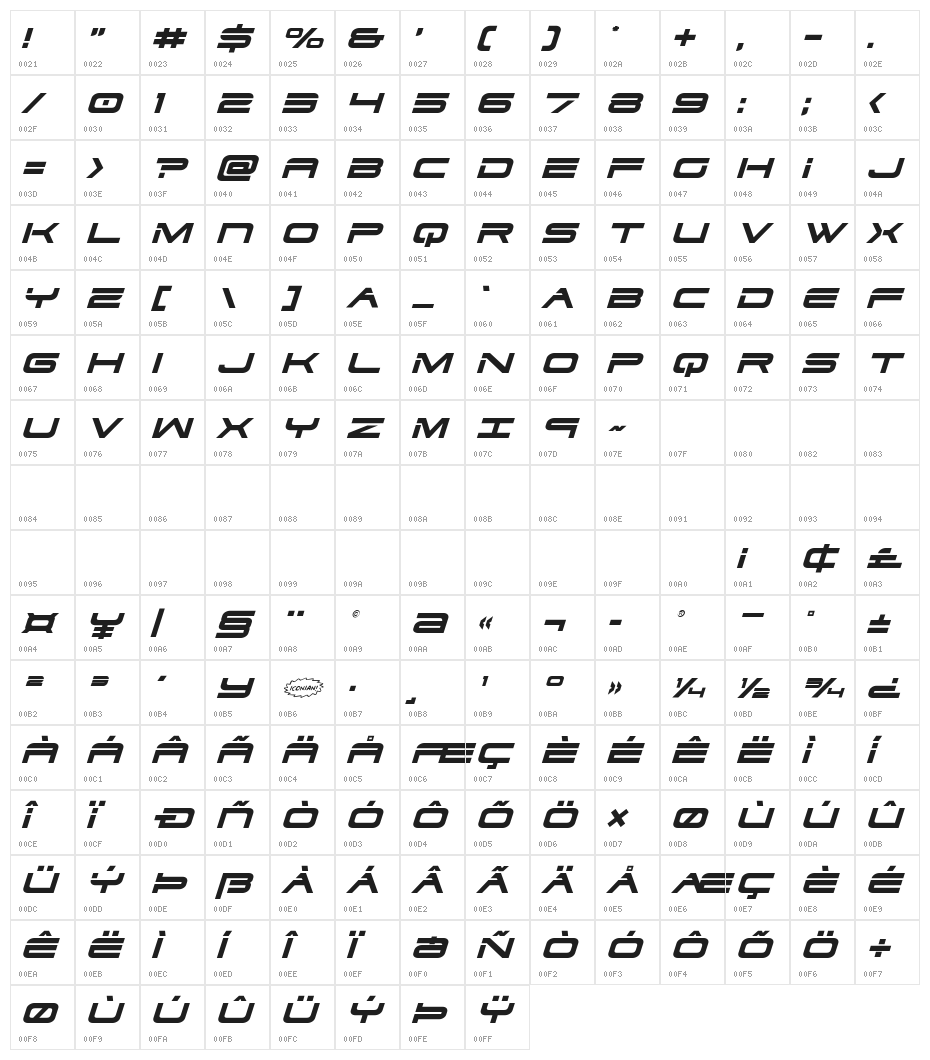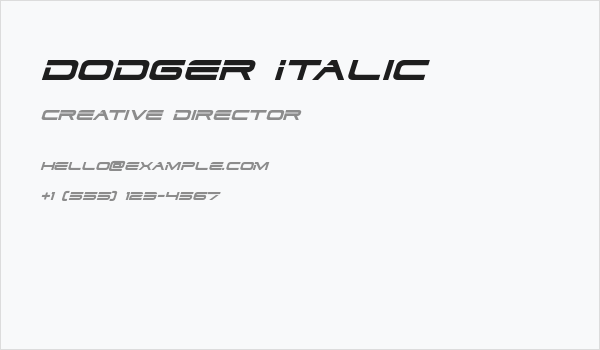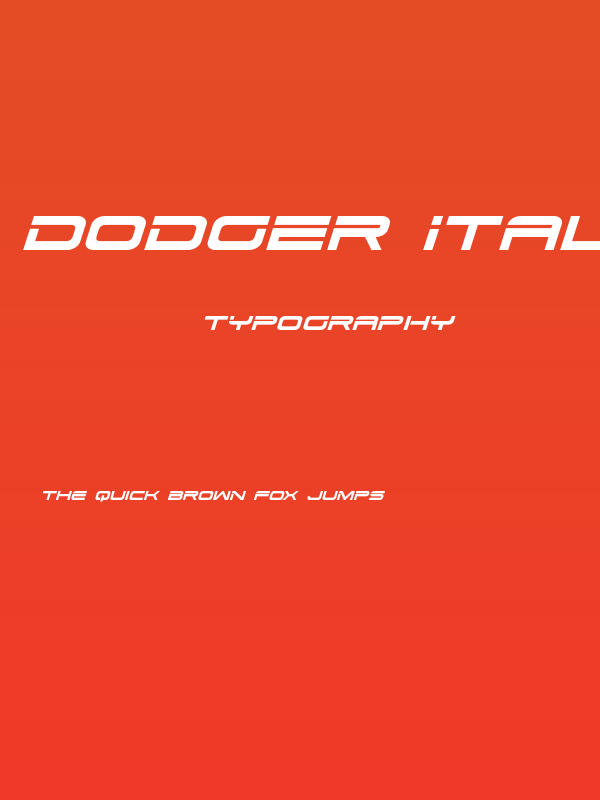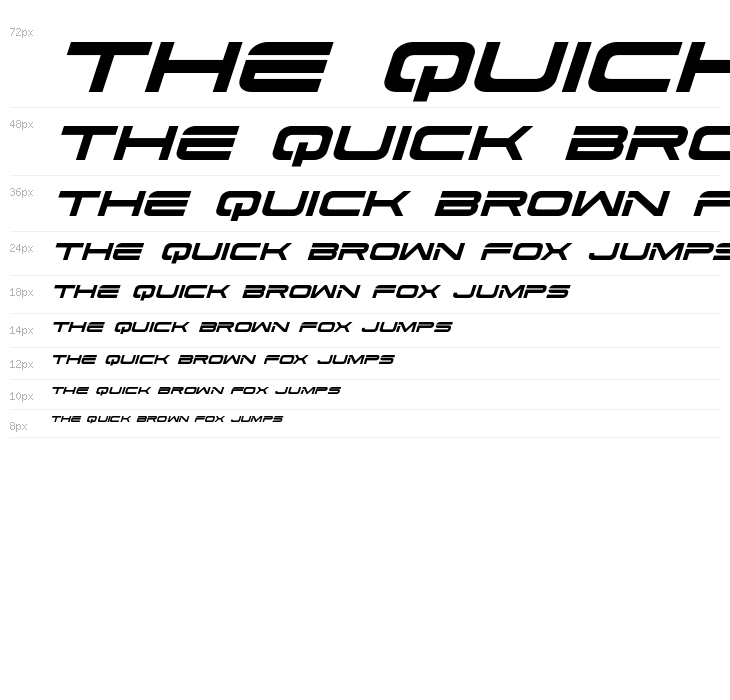
Dodger Italic Font
Dodger Italic Description
This font features a sleek, italicized design with a futuristic and dynamic appearance. The characters are slightly slanted, giving a sense of motion and speed. The strokes are uniform in thickness, contributing to a clean and modern look. The font maintains a consistent width across all characters, ensuring readability while adding a touch of sophistication. The angular cuts and geometric shapes of the letters enhance its contemporary style, making it suitable for projects that require a bold and innovative aesthetic. The numbers and special characters are designed to match the overall theme, providing a cohesive visual experience.
| Use Case | Logos, Headlines |
| Proposed Projects | Ideal for technology branding, sports team logos, automotive advertisements, and sci-fi movie posters. |